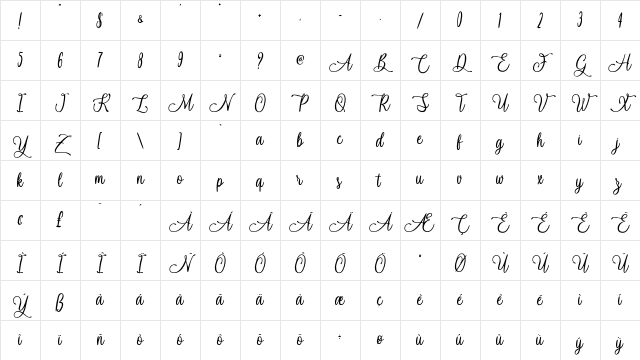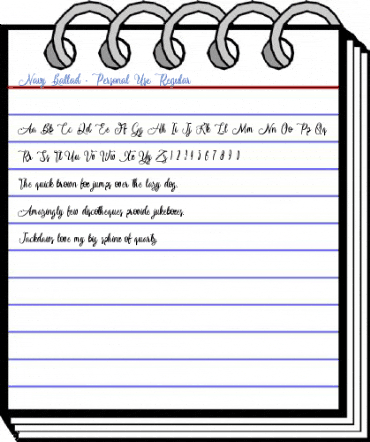
Complete Navy Ballad - Personal Use Regular glyph index. Displaying only characters natively supported by Navy Ballad - Personal Use Regular font.
Navy Ballad - Personal Use is a composed and adaptable typeface that performs quietly and consistently across a wide range of design contexts.
Who designed the Navy Ballad - Personal Use Regular font?
This font was published by Typhoon Type - Suthi Srisopha. Check the technical specs section for copyright and designer details.